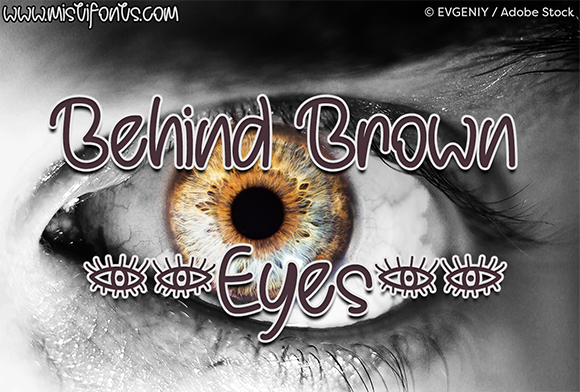
Behind Brown Eyes Font
About Behind Brown Eyes Font
Behind Brown Eyes is an eye-catching font that is perfect for a variety of projects!
SPECIAL SYMBOLS
Type * (asterisk) for the eyes